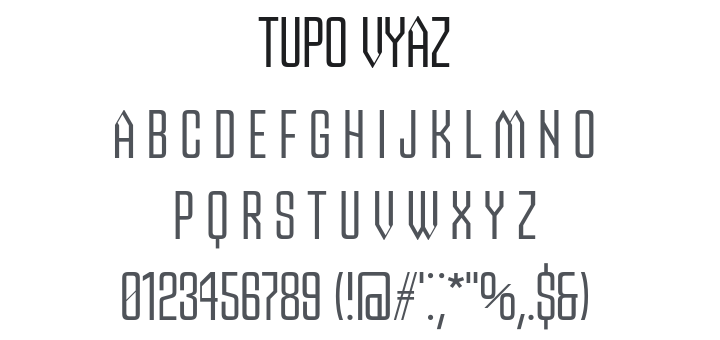
Tupo Vyaz Font Family
by ParaType
About Tupo Vyaz
Tupo Vyaz is a modular closed sans serif font with very simple design and some elements from the northern variant of Vyaz slavonic calligraphic hand. The font was designed for headline setting on the website of Modern Cyrillic 2019 type design competition. Itβs uniwidth which makes it very handy for dynamic weight changing in headlines or menus. Also the specific shapes and fixed angles of diagonal strokes allow to change also the height of glyphs. This feature was prototyped and will be added to the next version of Tupo Vyaz. The typeface was designed by Alexandra Korolkova in 2019 an released by Paratype in 2020.